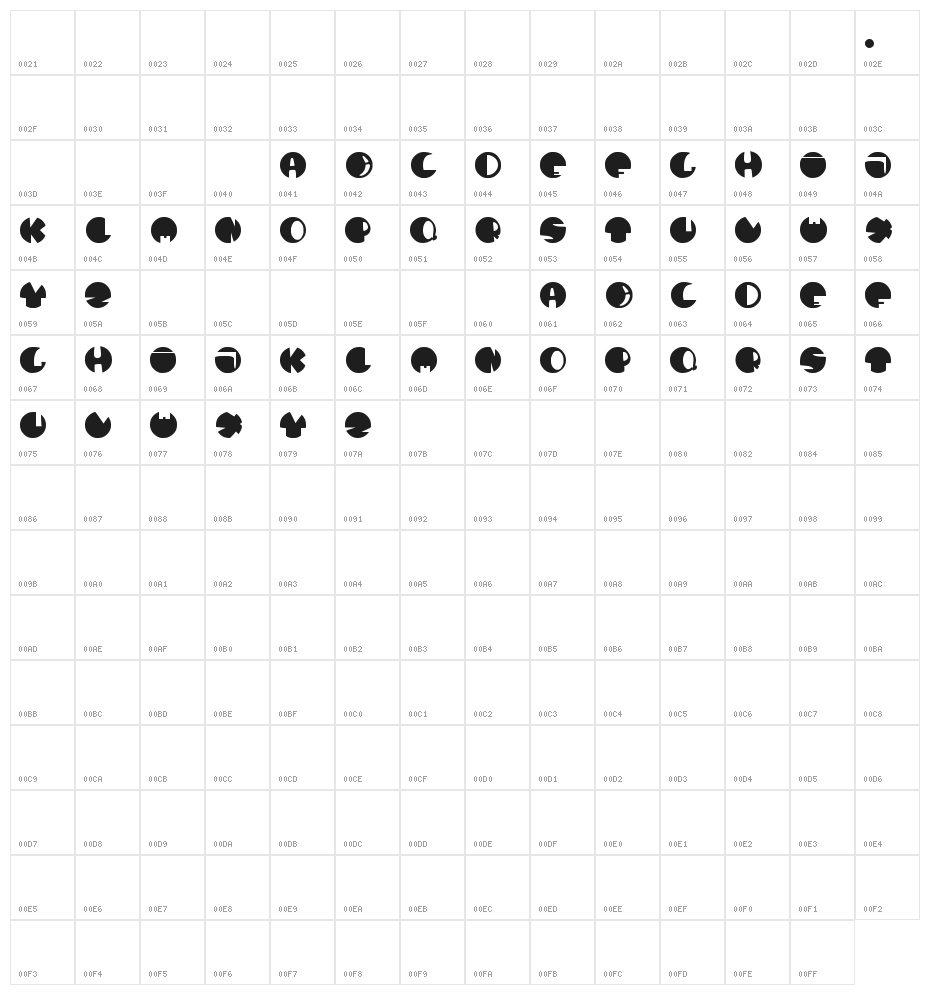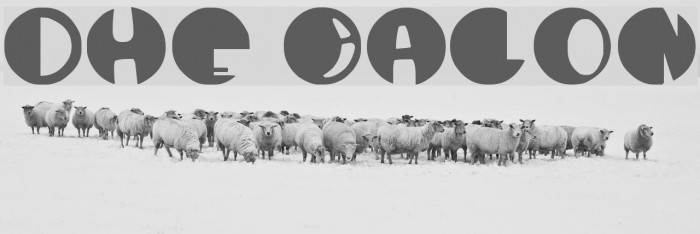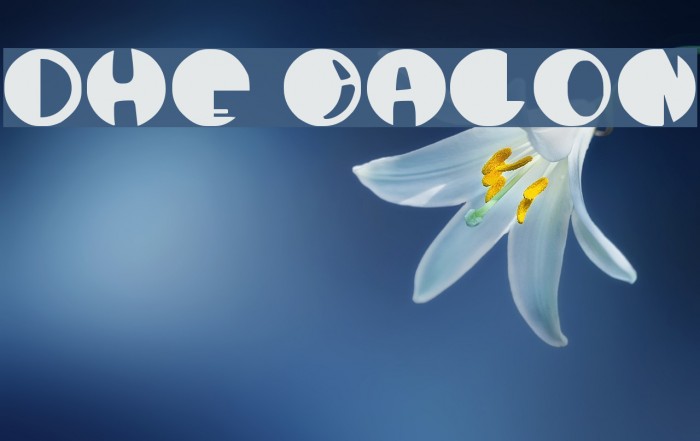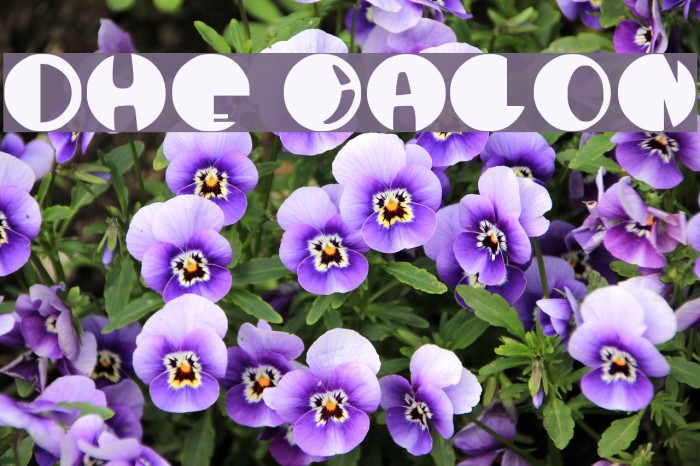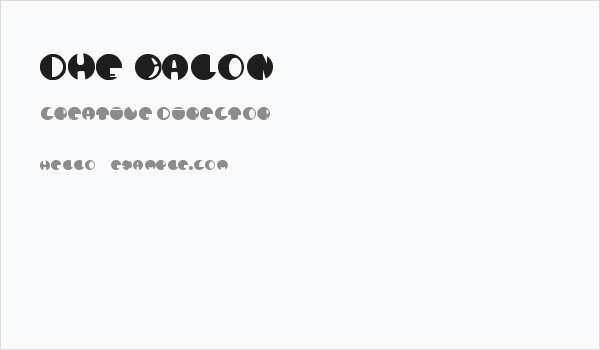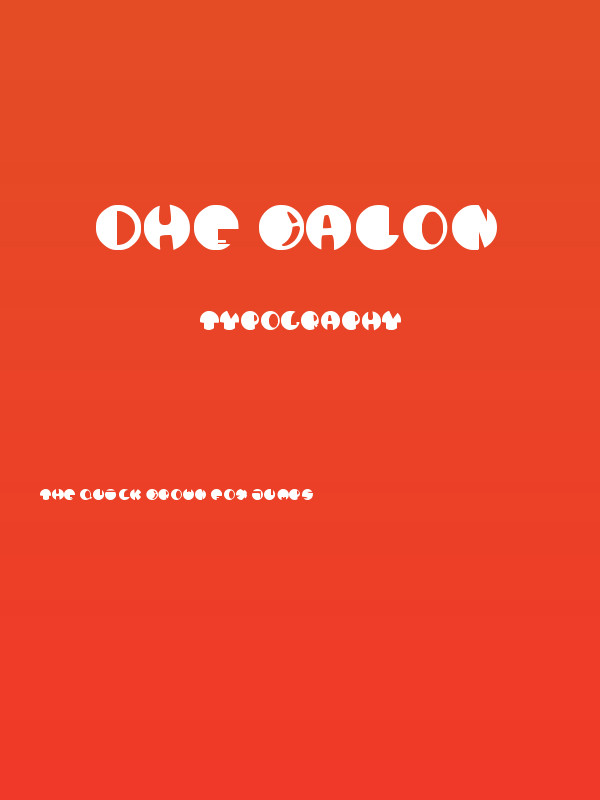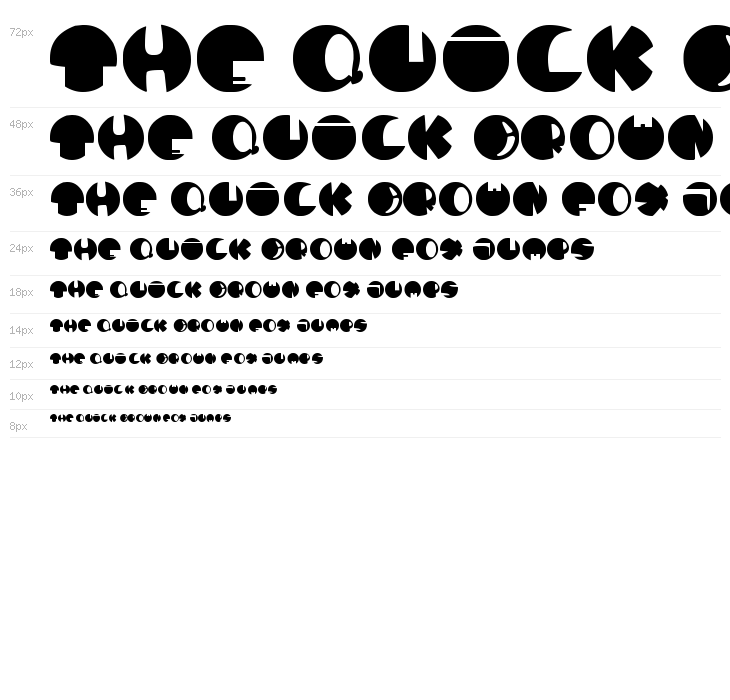
dhe balon Font
dhe balon Description
This font features a bold and geometric design with a futuristic and abstract aesthetic. Each character is crafted with circular and angular elements, creating a unique and eye-catching appearance. The letters are predominantly composed of solid black shapes with negative space cutouts that form the recognizable alphabet. This design gives the font a modern and innovative look, suitable for creative and artistic projects. The uniformity in the design provides a cohesive and consistent visual style across all characters.
DHE-BALON UPPERCASE
DHE-BALON LOWERCASE
DHE-BALON OTHER CHARS
| Proposed Projects | Ideal for branding, posters, album covers, and digital art projects that require a modern and distinctive look. |